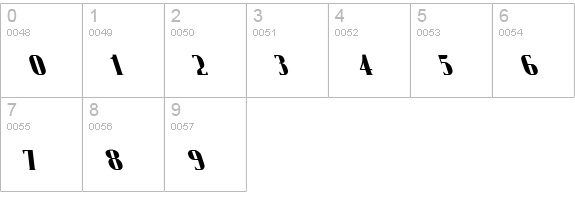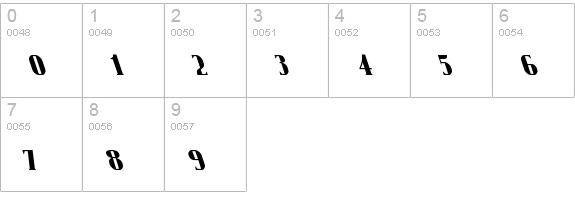
Fund Runk Lefty font is a whimsical and playful typeface that adds a fun and friendly touch to any design project. With its unique and quirky letterforms, this font is perfect for creating eye-catching headlines, posters, and invitations. The irregular shapes and flowing strokes give Fund Runk Lefty font a hand-drawn feel that will make your designs stand out. Best of all, Fund Runk Lefty font is available for free download at FontsMarket.com. Whether you're a designer looking to add a touch of charm to your work or simply want to experiment with a new font style, Fund Runk Lefty is a great choice. Download it today and let your creativity run wild with this delightful and free font option.